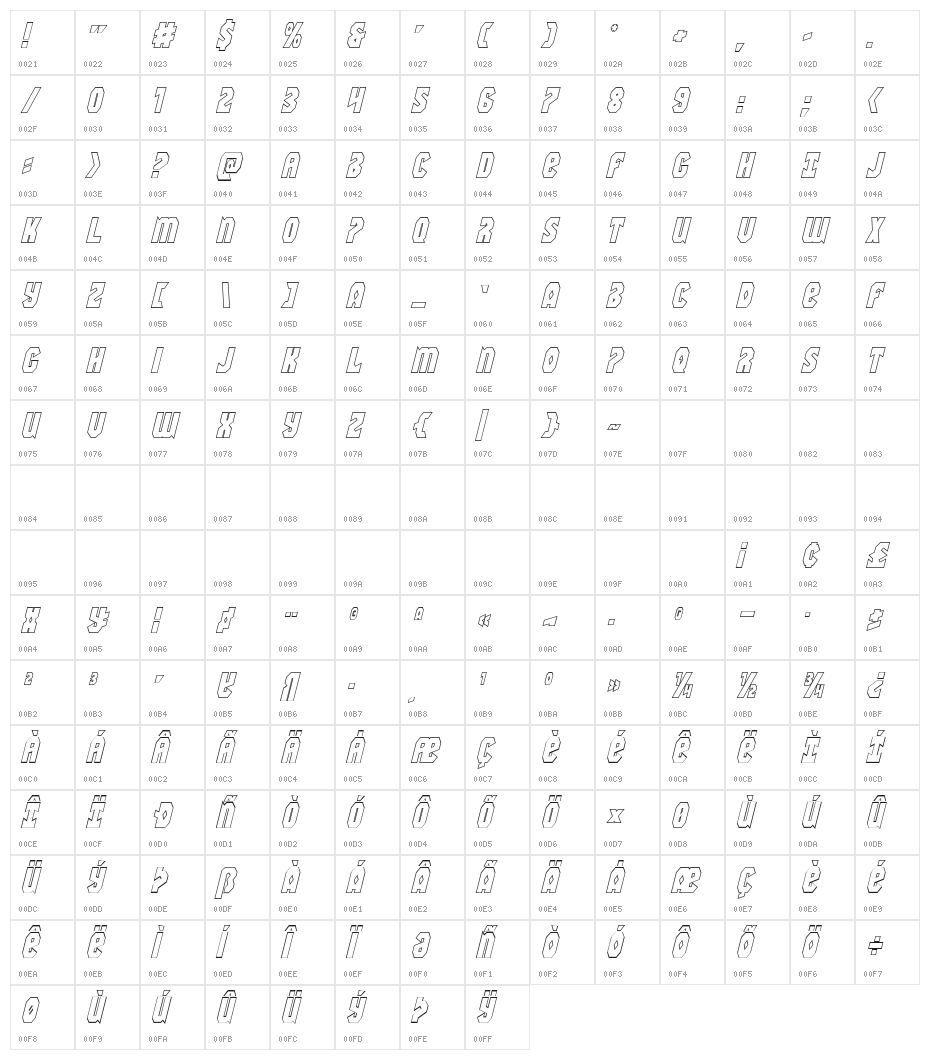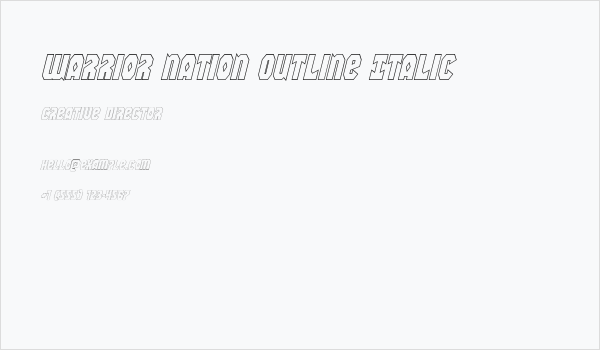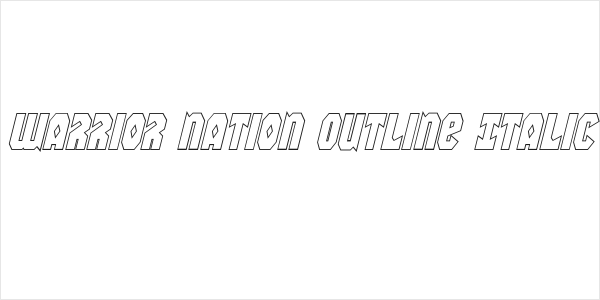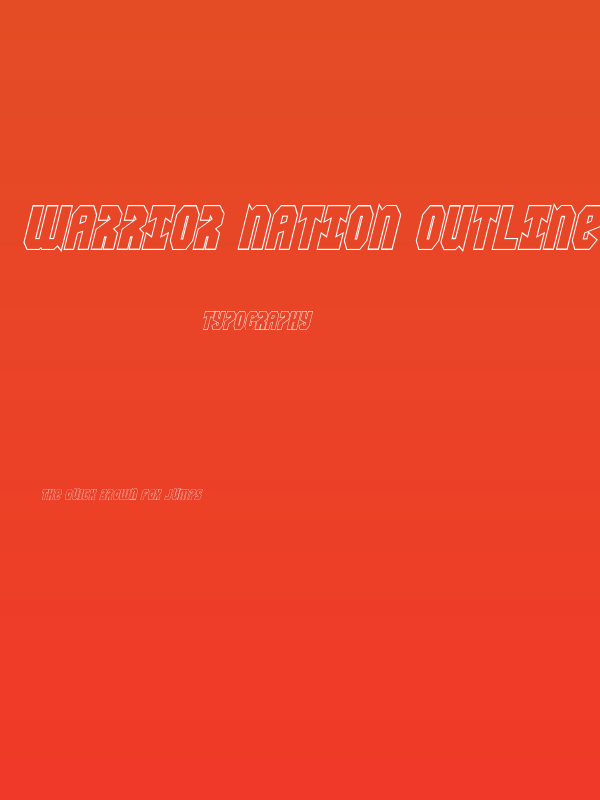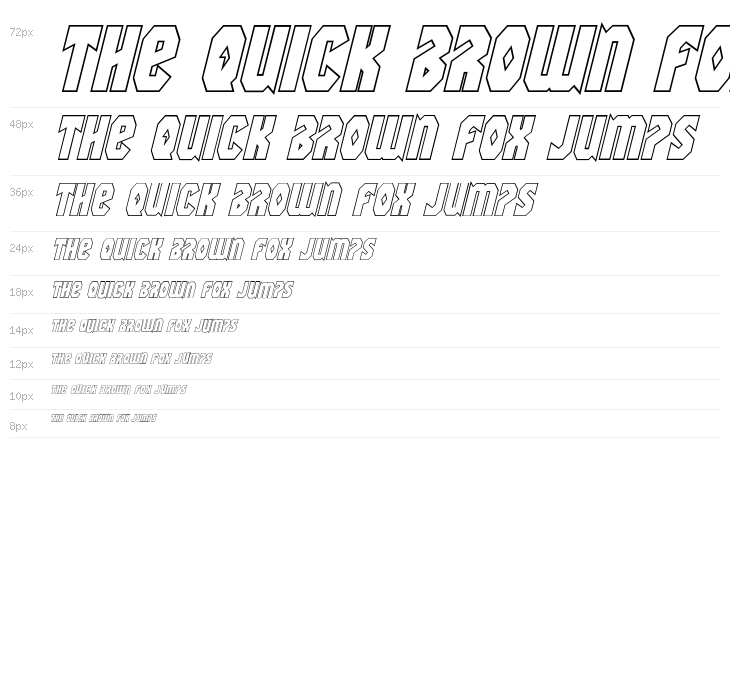
Warrior Nation Outline Italic Font
Warrior Nation Outline Italic Description
This font features a bold, angular design with a distinct outline style that gives it a strong, impactful presence. The italic slant adds a dynamic feel, enhancing its aggressive and modern aesthetic. Each character is crafted with sharp edges and geometric shapes, creating a sense of movement and energy. The uppercase and lowercase letters maintain a consistent style, while the numbers and special characters complement the overall design. This font is ideal for projects that require a bold statement and a futuristic look.
| Proposed Projects | Ideal for sports team logos, video game titles, posters, and branding that requires a strong, dynamic presence. |